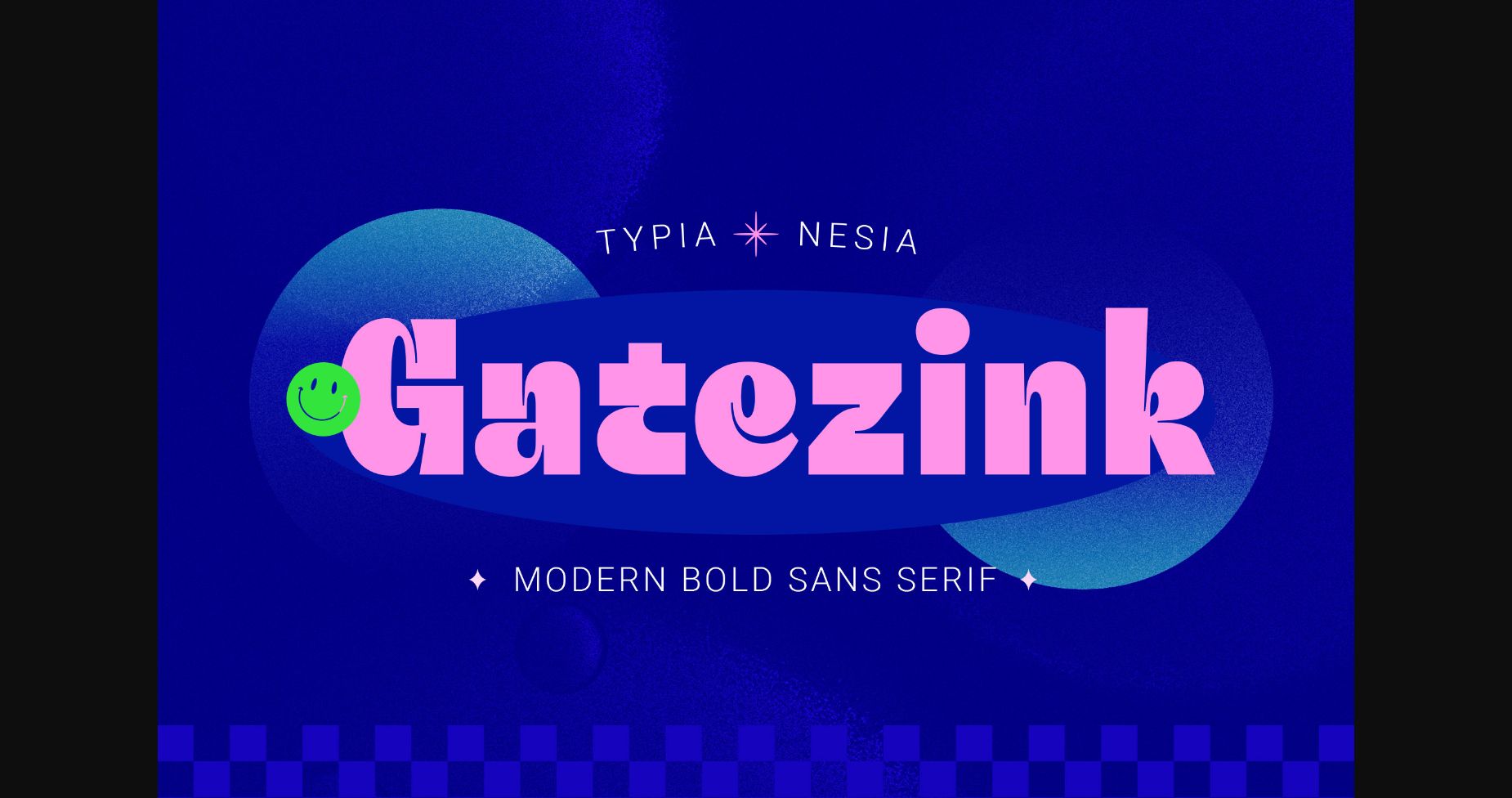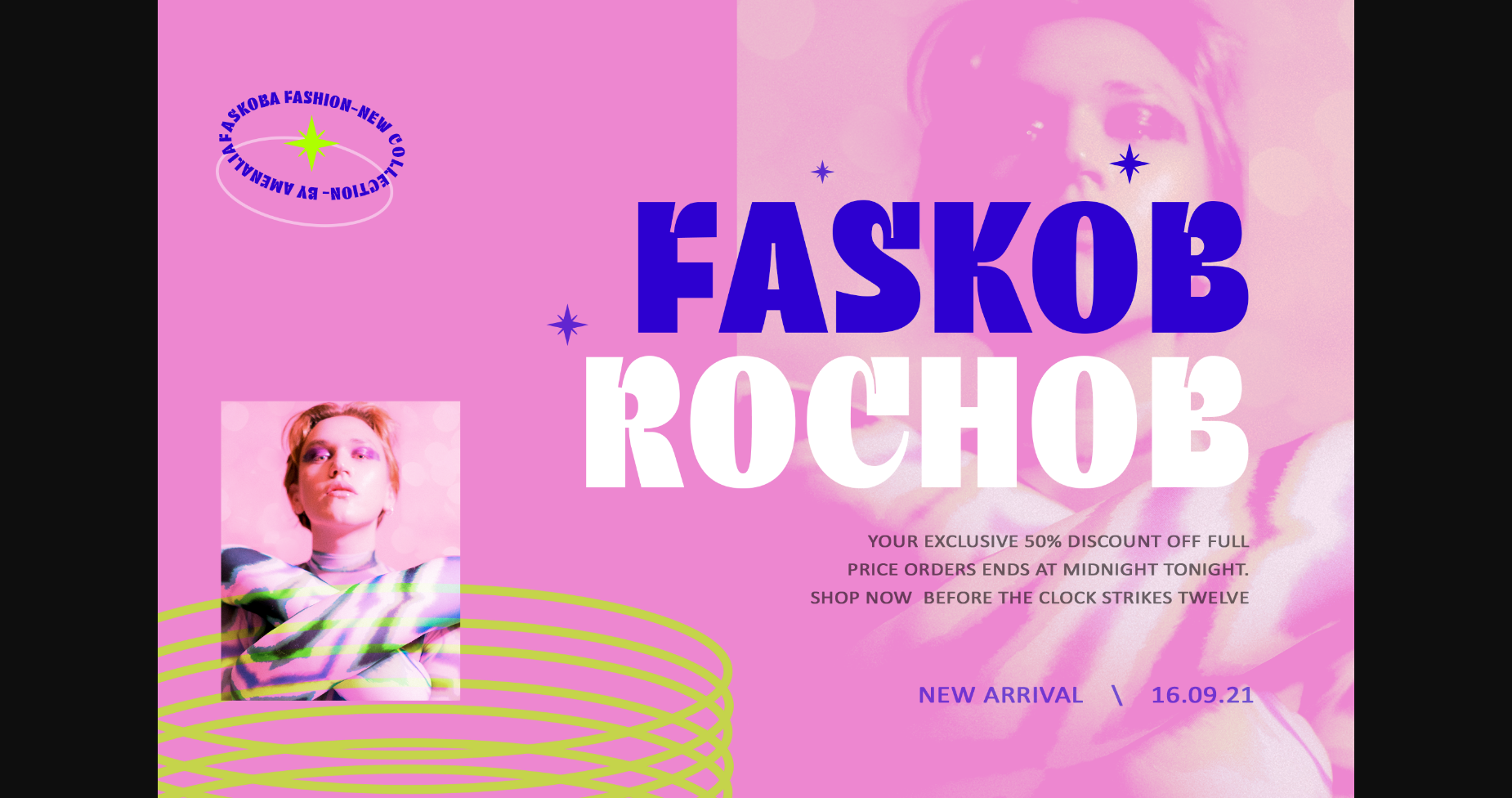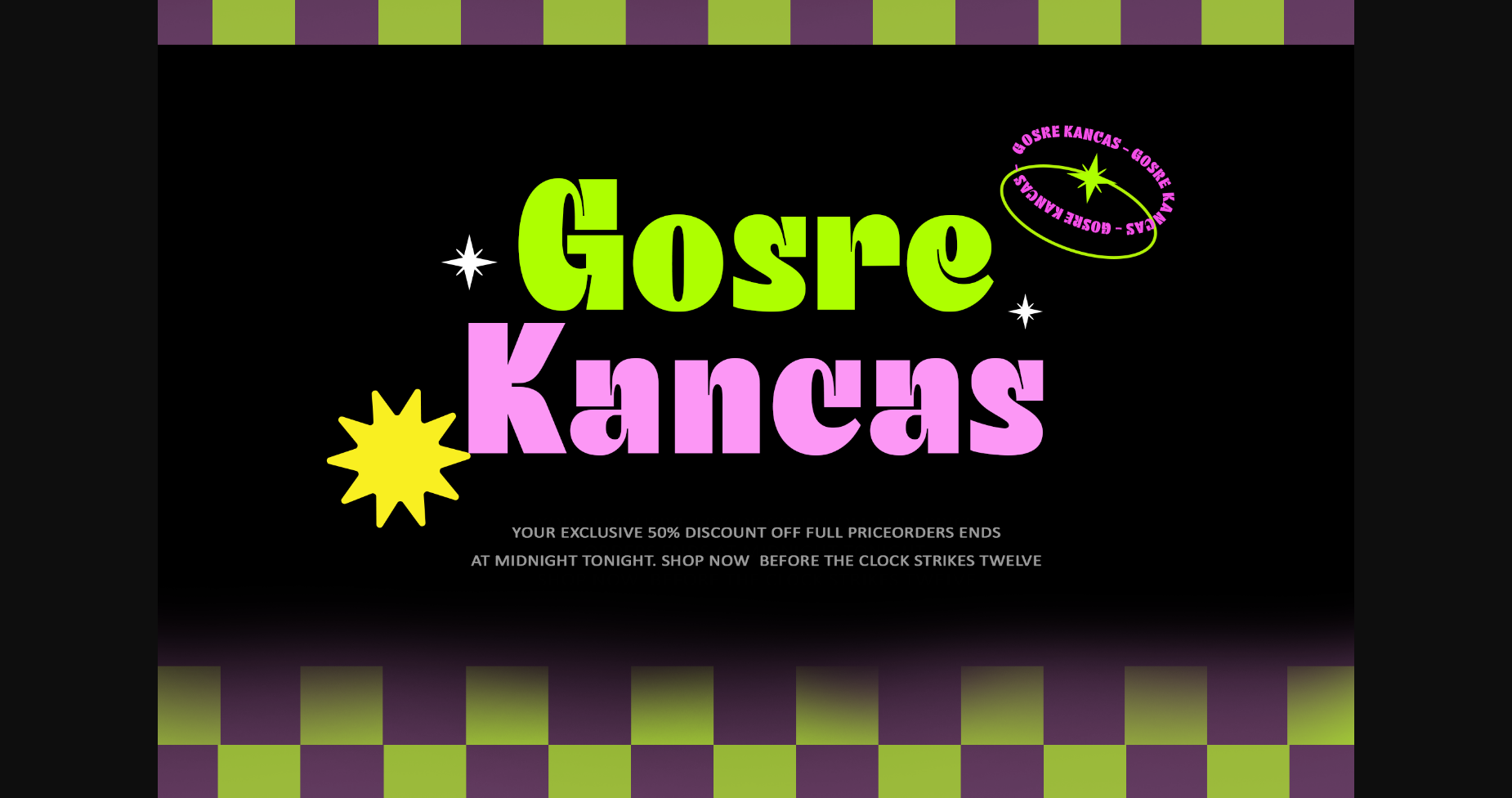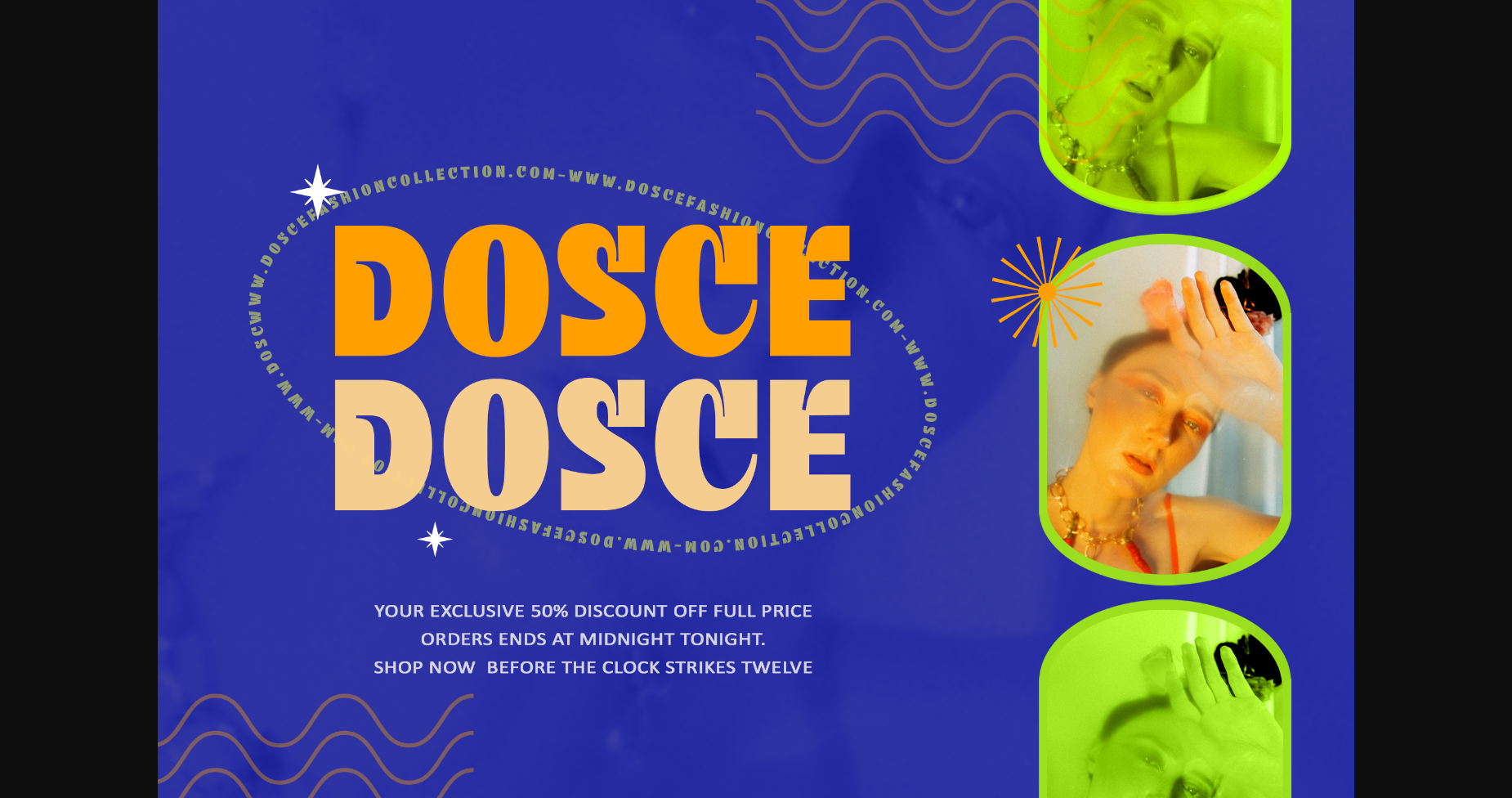
About Gatezink Font
Introducing Gatezink, the bold and black sans serif font that’s perfect for adding a touch of fun and playfulness to your designs. With its retro and pop-inspired style, Gatezink is the perfect choice for display purposes, from eye-catching headlines to attention-grabbing posters.
The thick and heavy lines of Gatezink give it a strong and powerful appearance, while the playful curves and angles add a touch of personality and whimsy. This font is designed to stand out and make a statement, whether it’s used in print or digital media.
Gatezinkis a versatile font that can be used for a wide range of applications, from advertising and branding to packaging and web design. With its bold and playful style, it’s sure to capture the attention of your audience and leave a lasting impression.
The thick and heavy lines of Gatezink give it a strong and powerful appearance, while the playful curves and angles add a touch of personality and whimsy. This font is designed to stand out and make a statement, whether it’s used in print or digital media.
Gatezinkis a versatile font that can be used for a wide range of applications, from advertising and branding to packaging and web design. With its bold and playful style, it’s sure to capture the attention of your audience and leave a lasting impression.